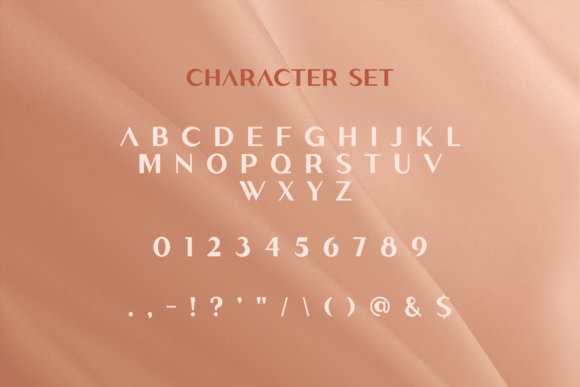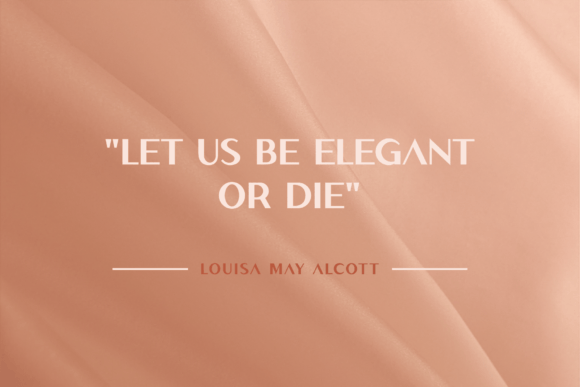
Introducing Avery Font: The Epitome of Modern Sans Serif Elegance
In the realm of typography, the right font can elevate a design from mundane to extraordinary. For designers and crafters seeking a font that embodies both modernity and luxury, Avery Font is a game-changer. This minimal yet modern sans serif font is meticulously crafted to offer a clean, elegant appearance that is perfect for a wide array of design applications.
The Essence of Avery Font
Avery Font is characterized by its clean lines and minimalist aesthetic, which confers an air of sophistication and luxury. Its sans serif design ensures that the text is clear and highly legible, making it an excellent choice for designers who aim to convey their message with elegance and precision. Whether you’re working on titles, headers, social media posts, logo designs, quotes, banners, or any other project that demands a touch of class, Avery Font proves to be a versatile and reliable option.
Key Features of Avery Font
- Minimal yet Elegant: Avery Font strikes the perfect balance between minimalism and elegance, ensuring that your designs are both understated and impactful.
- Clean Lines: The font’s clean lines enhance readability and make it suitable for digital and print media.
- Luxury Feel: Despite its minimalist approach, Avery Font exudes a sense of luxury, making it ideal for high-end branding and design projects.
- Versatility: From titles and headers to social media graphics and banners, Avery Font’s versatility knows no bounds.
Applications of Avery Font
The versatility of Avery Font makes it suitable for a myriad of design applications. Here are some of the areas where Avery Font truly shines:
- Logo Designs: Create memorable and elegant logos that stand out with Avery Font.
- Social Media Posts: Elevate your social media presence with stylish and readable posts.
- Banners and Headers: Make a statement with banners and headers that exude luxury and sophistication.
- Quotes and Typography: Use Avery Font to give quotes and typographic designs a clean, modern look.
Why Choose Avery Font?
In a world where design trends are constantly evolving, Avery Font offers a timeless solution for designers and crafters. Its modern sans serif design, coupled with its luxurious feel, makes it a valuable addition to any designer’s toolkit. Here are a few reasons why Avery Font should be your go-to choice:
- Timeless Appeal: Avery Font’s minimalist design ensures that it remains relevant across various design trends.
- Enhanced Readability: The clean and simple design of Avery Font enhances readability, making it perfect for both digital and print media.
- Easy to Pair: Avery Font’s neutral aesthetic makes it easy to pair with other fonts, offering flexibility in design.
Avery Font is more than just a typeface; it’s a design statement. Its minimal yet modern sans serif design, coupled with its elegant and luxurious feel, makes it an indispensable tool for designers and crafters. Whether you’re aiming to create stunning titles, headers, social media posts, or any other design project, Avery Font offers the perfect blend of style, readability, and versatility. Embrace Avery Font in your next design project and experience the transformative power of typography.